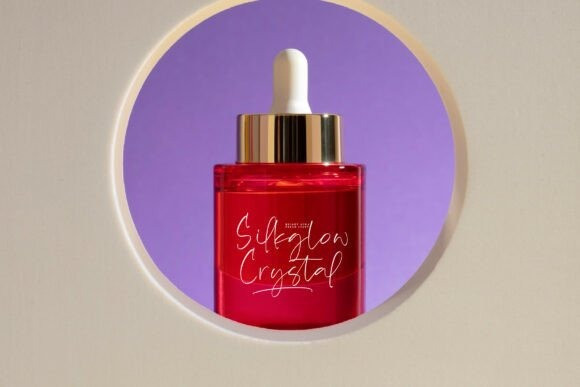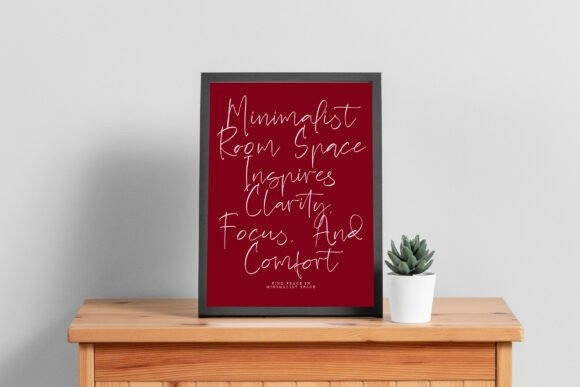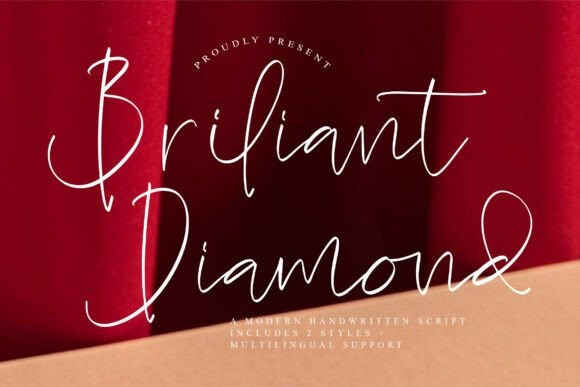
Briliant Diamond Font
Briliant Diamond Font is a modern diamond font, perfect for any project like: logos, branding projects, homewares designs, product packaging, mugs, quotes, posters, shopping bags, t-shirts, covers books, business cards, invitation cards, greeting cards, labels, photography, watermarks, special events and all your other luxury projects that require a premium taste.